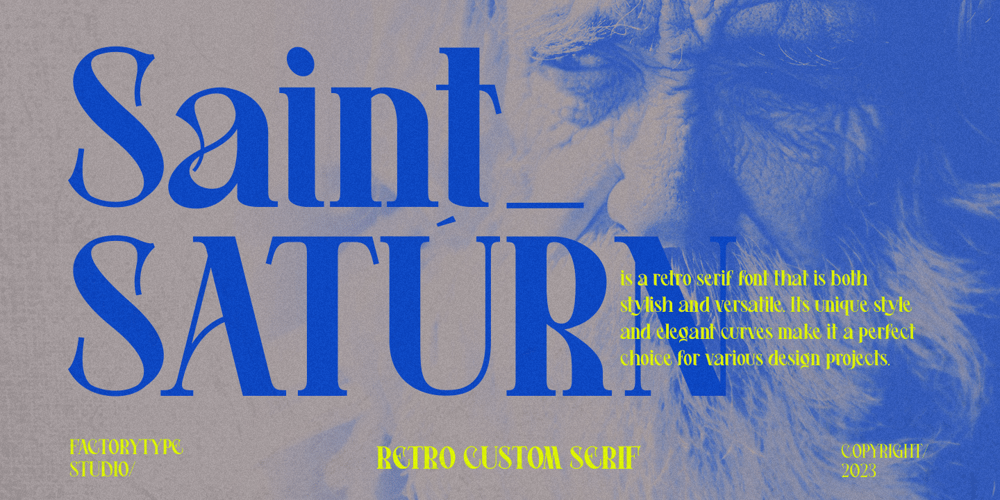
Saint Saturn Font Family was designed by Wahyu Rahmawan and published by Factory738. Saint Saturn contains 7 styles and family package options. Are you looking for a new font to add to your collection? Look no further than St Saturn, a retro serif font that is both stylish and versatile. Whether you’re designing a logo, creating a website, or working on a print project, this font has the potential to elevate your work to the next level. Keep reading to learn more about the features that make St Saturn unique and how to use it effectively. 7 Weights Basic Latin A-Z and a-z Numerals & Punctuation Stylistic Ligatures and Alternate Glyphs Multilingual Support for ä ö ü Ä Ö Ü … Free updates and feature additions Thanks for looking, and I hope you enjoy it.